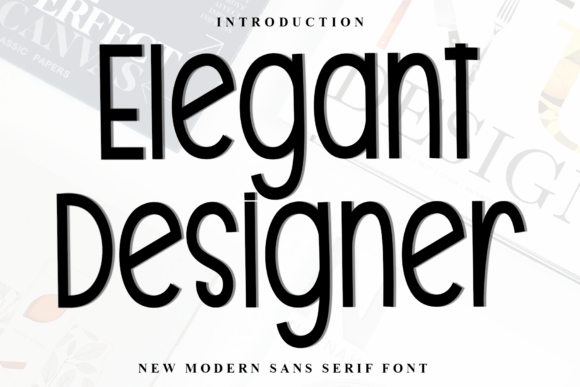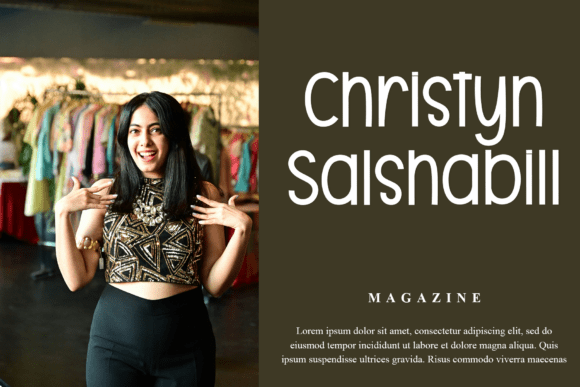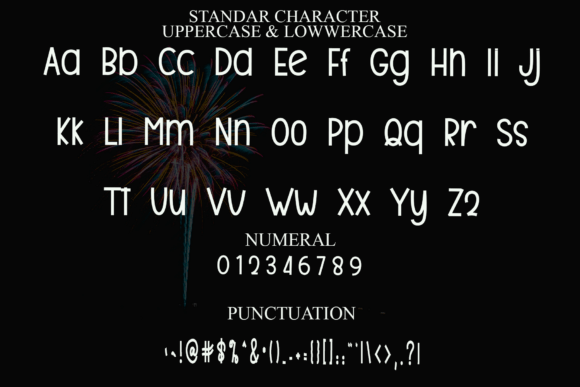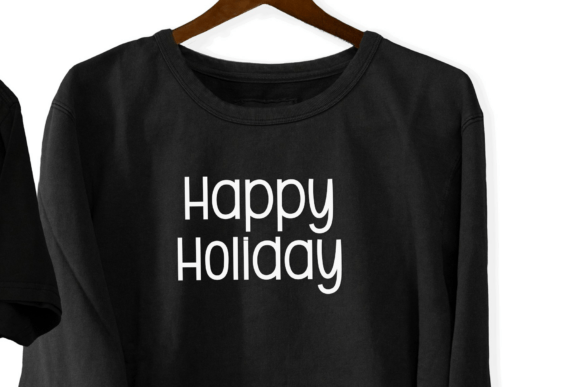
Elegant Designer Font
About the Elegant Designer Font
From logos to headlines, the Elegant Designer Font is the perfect choice for making a lasting impression. Elegant Designer is a casual and creative font that exudes warmth and friendliness. Its round, playful strokes create a relaxed and approachable feel, perfect for personal projects, invitations, and social media graphics. The font’s charming, hand-drawn aesthetic adds a fun and unique touch to any design.
Elegant Designer excels in headlines, short text blocks, and branding applications where a friendly, approachable tone is desired. It’s ideal for invitations, logos, short marketing copy, and social media posts. However, its playful nature makes it less suitable for body text, long paragraphs, or user interface elements where high readability is crucial.
Pairing Elegant Designer works best with clean sans-serif fonts like Open Sans or Lato for a balanced contrast. For a more sophisticated look, consider pairing it with a classic serif like Garamond or a slightly more modern serif like Playfair Display. Avoid pairing it with overly ornate or heavily stylized fonts, which could clash with its hand-drawn charm.
The font’s overall personality is best described as cheerful and approachable, conveying warmth and approachability. It’s a great choice for brands focusing on handmade products, creative businesses, or projects targeting a younger demographic.
Elegant Designer Font Usage Examples
Elegant Designer Font Example